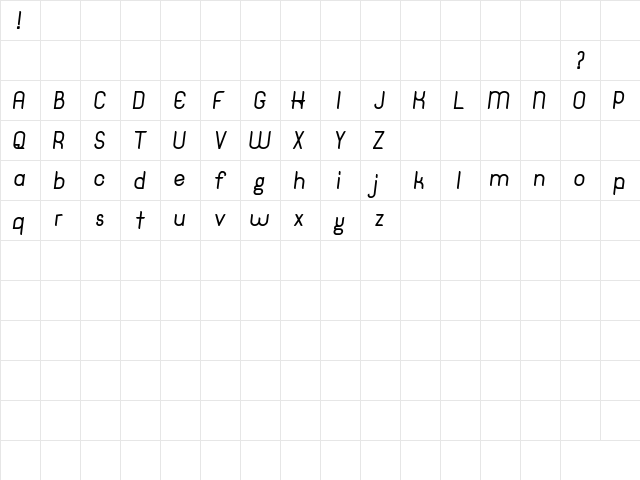
Hinge DEMO Semi Bold Italic
Design Context for Hinge DEMO Typeface
Hinge DEMO offers clean, dependable letterforms without strong stylistic allegiance, making it a practical choice for designers who need flexibility. The dynamic lean of this cut emphasises speed and emphasis in any layout. The heavy weight commands attention and anchors typographic hierarchies.
Pro Tip: Use Hinge DEMO for emphasis, pull quotes, and subheadings where its slanted energy can add rhythm to the layout.